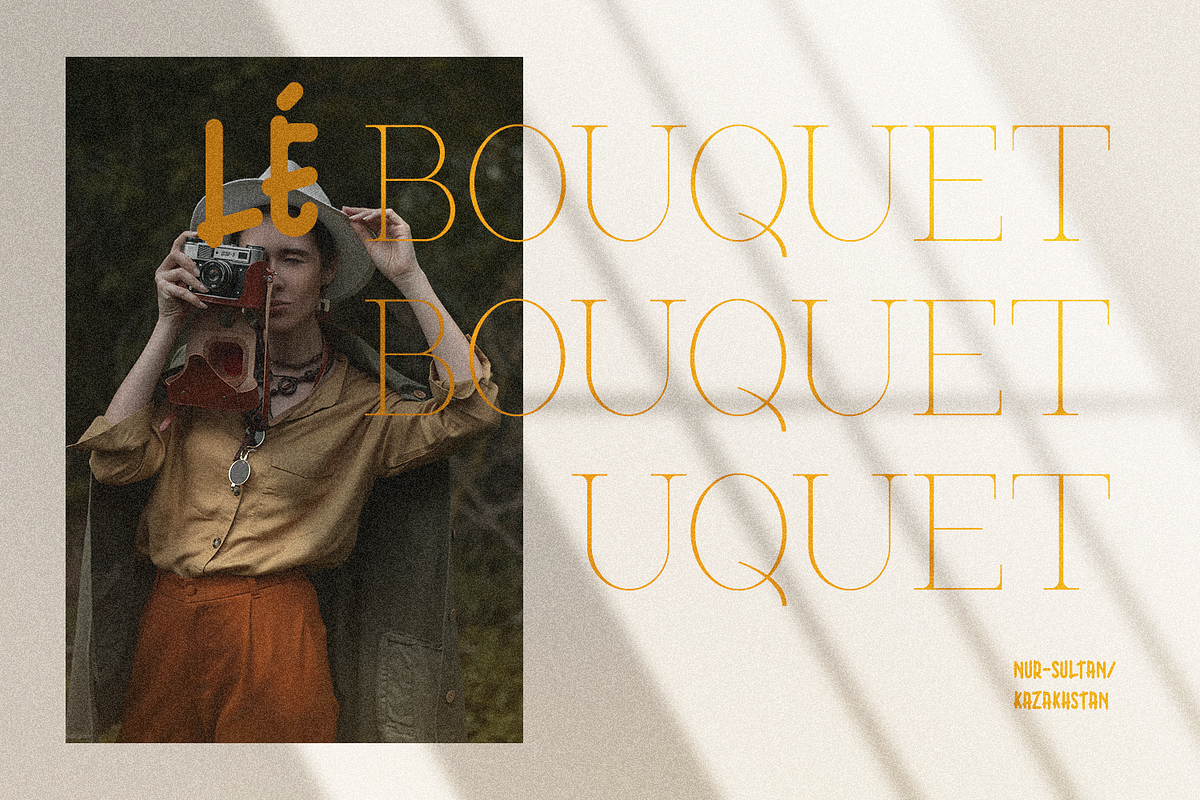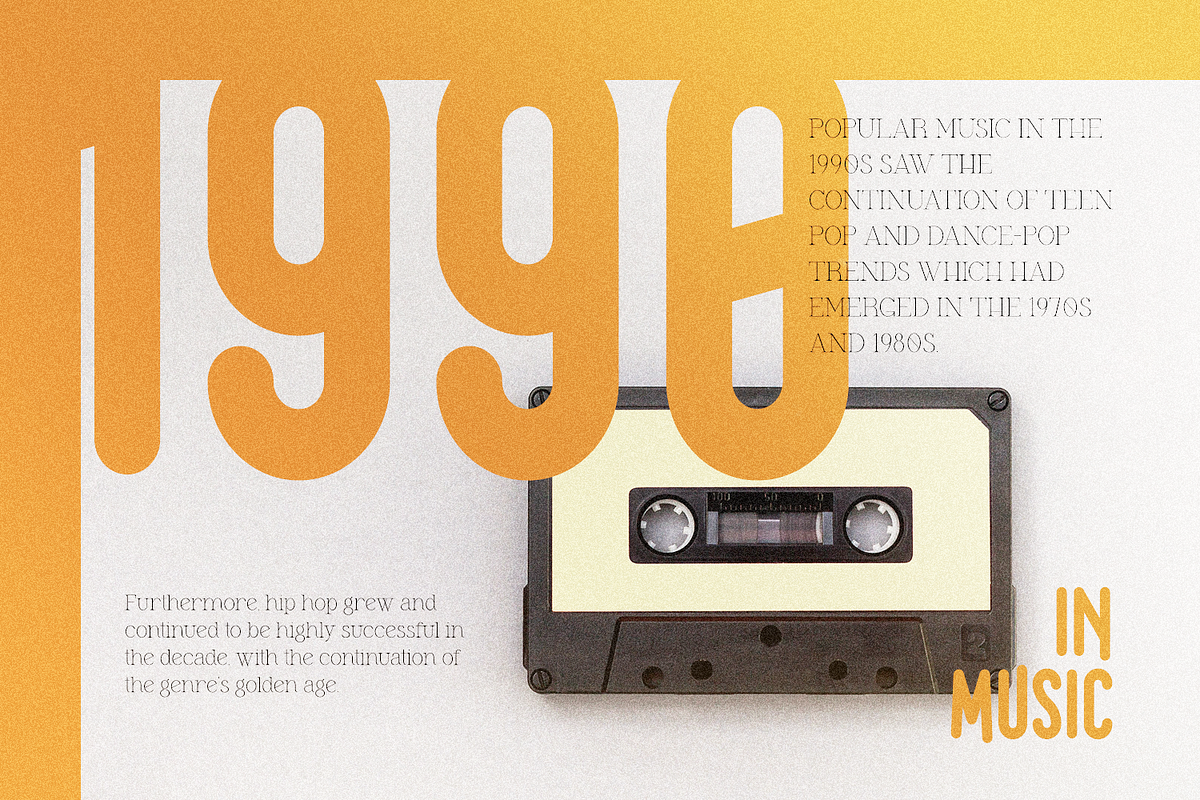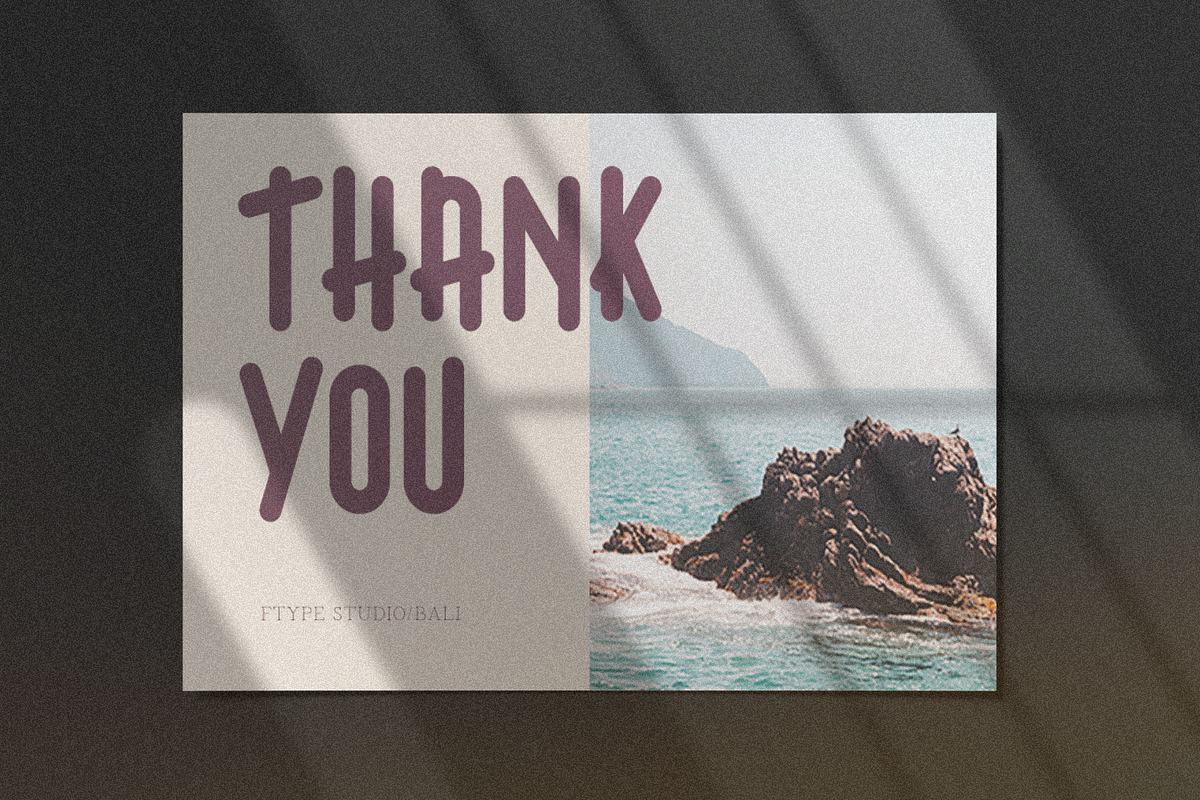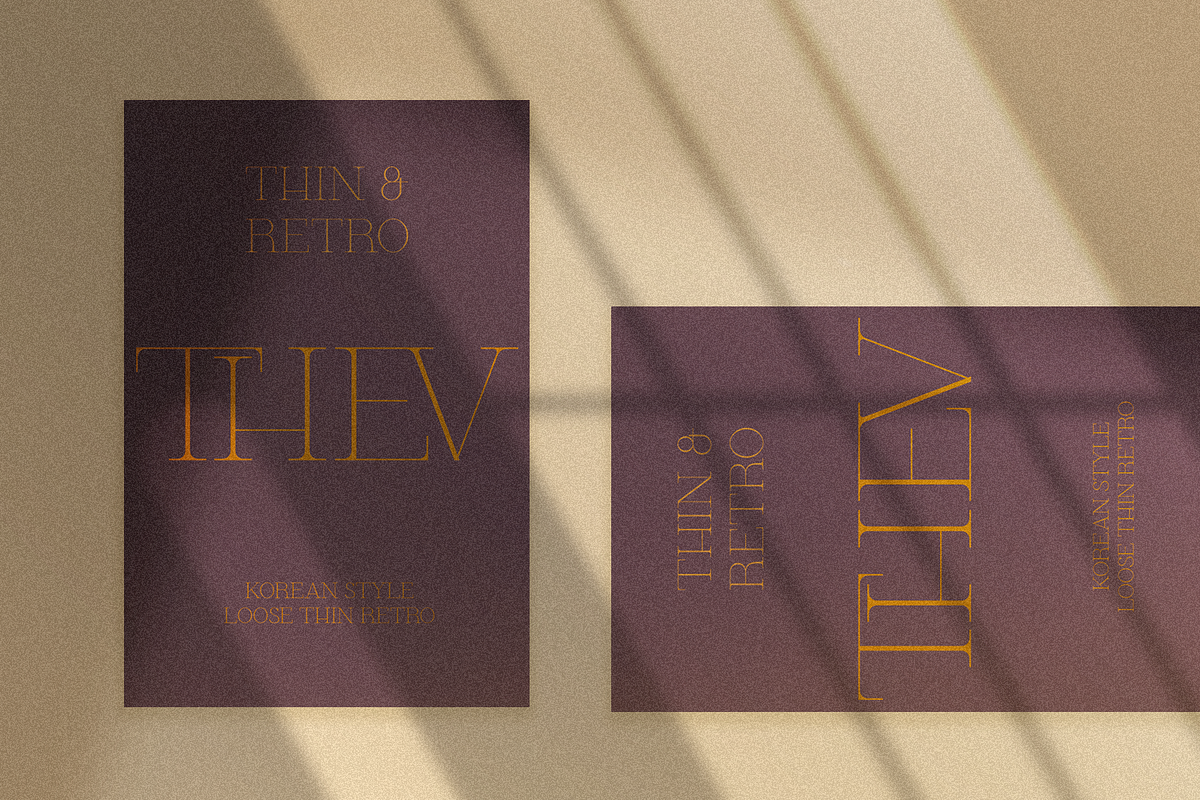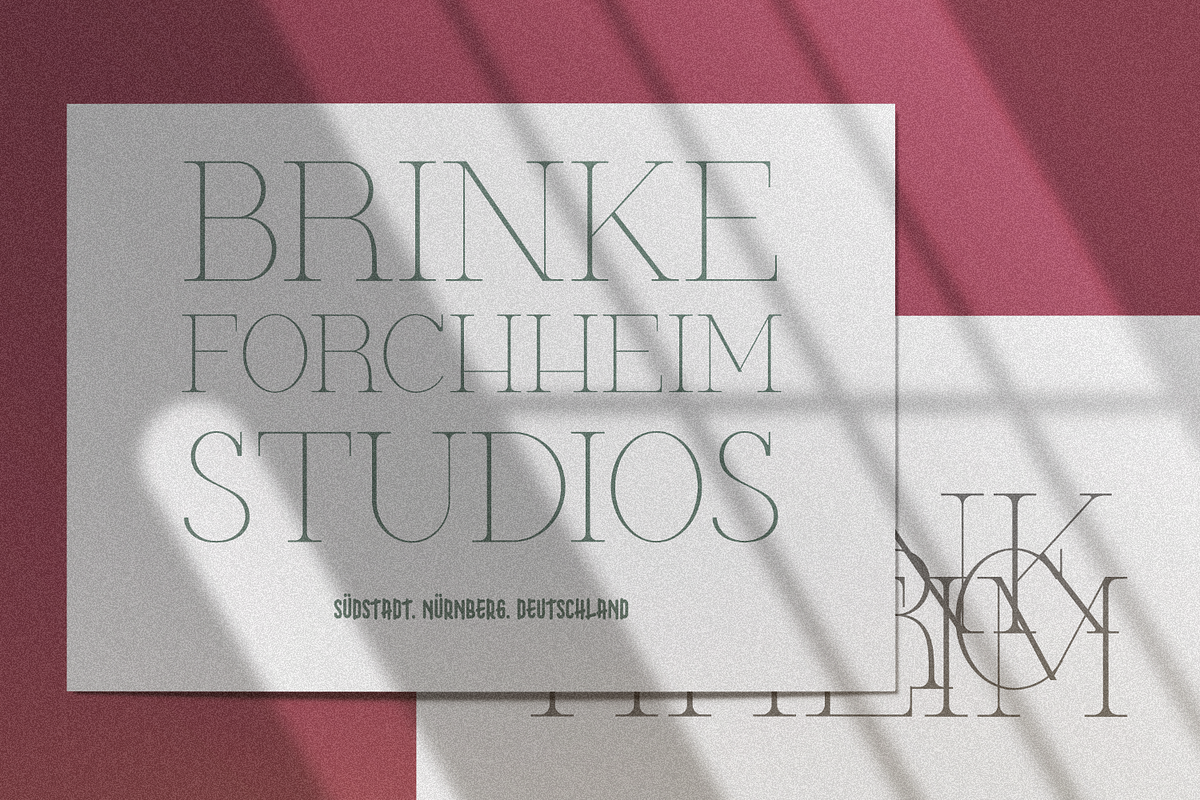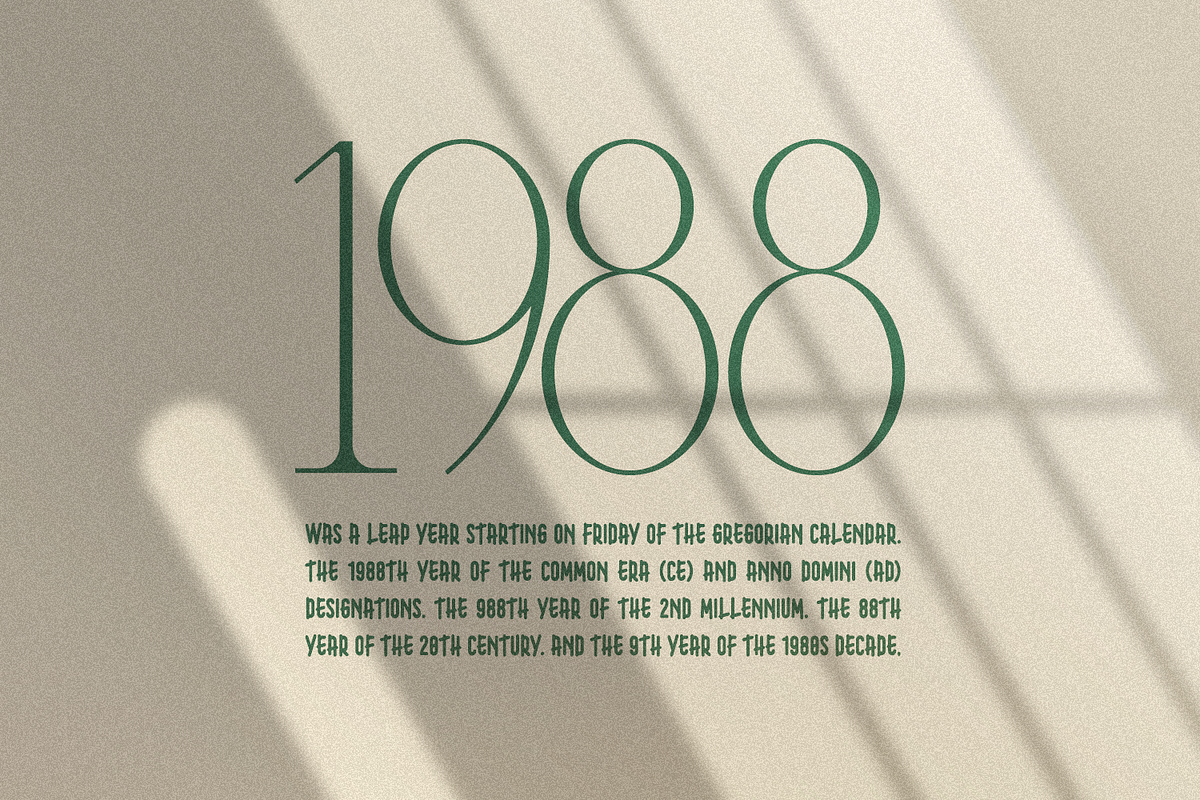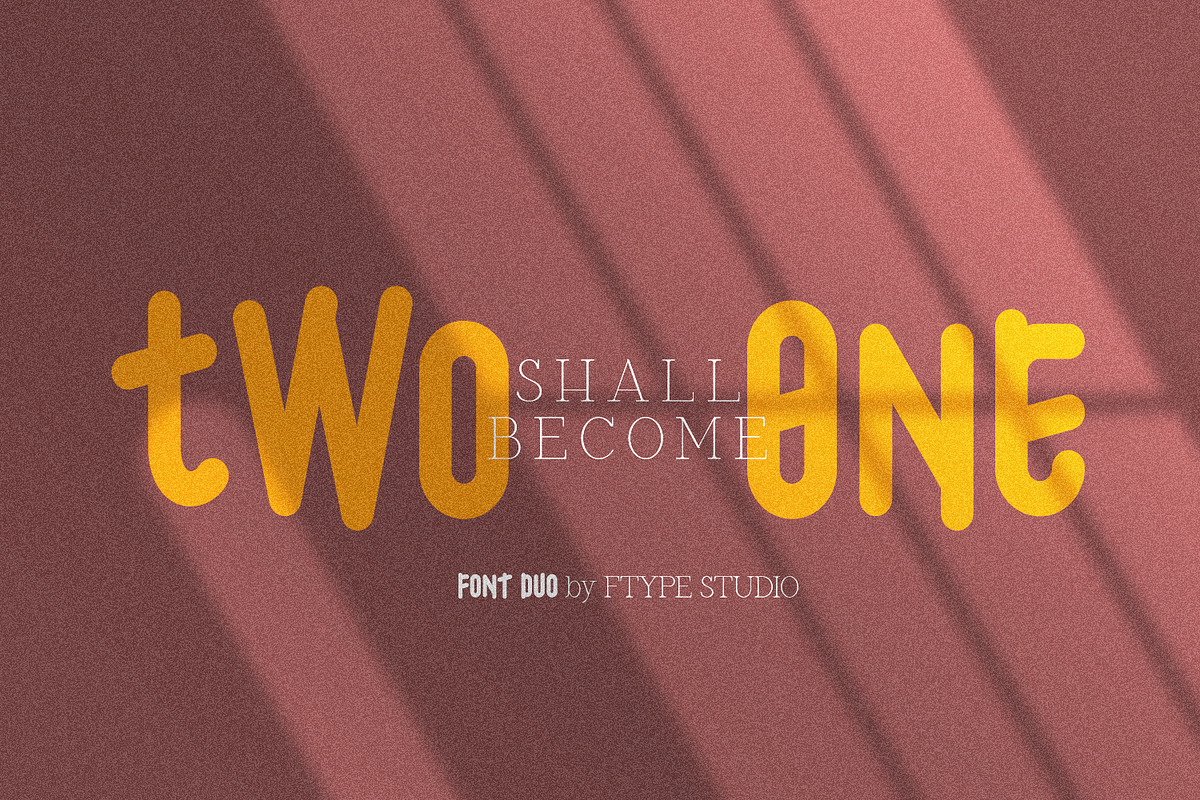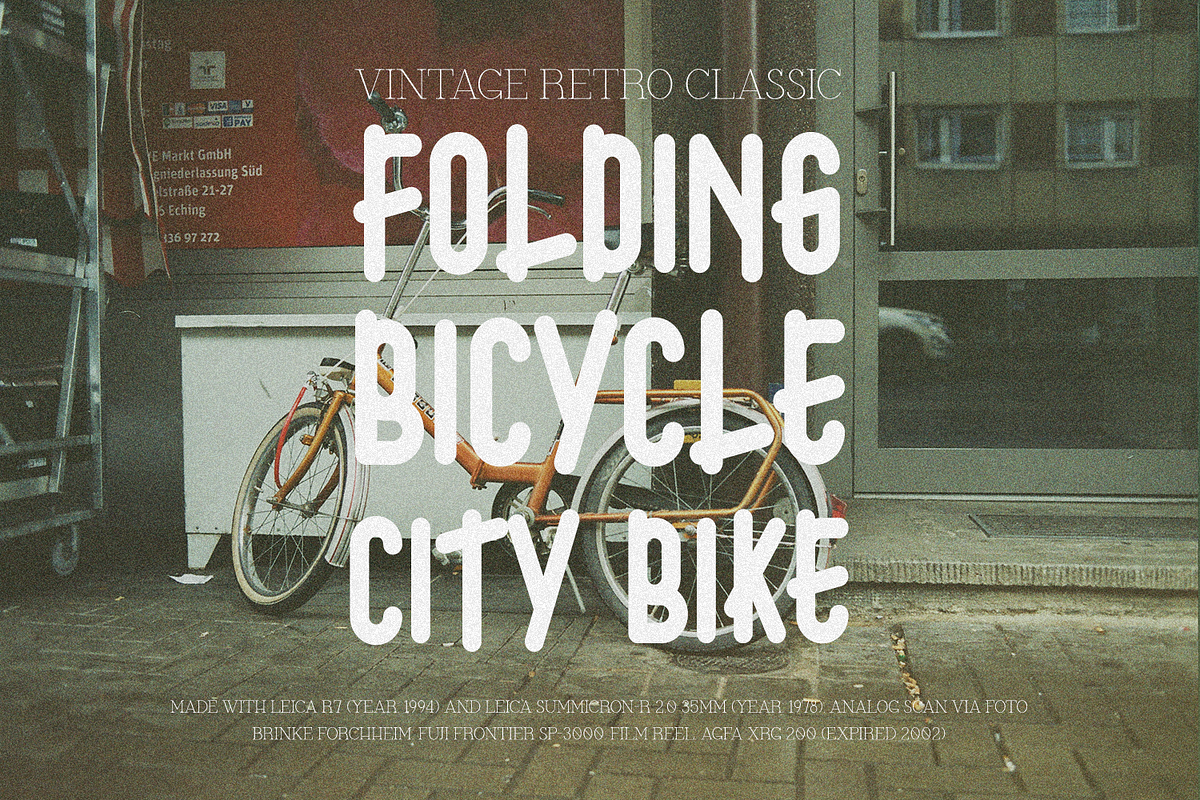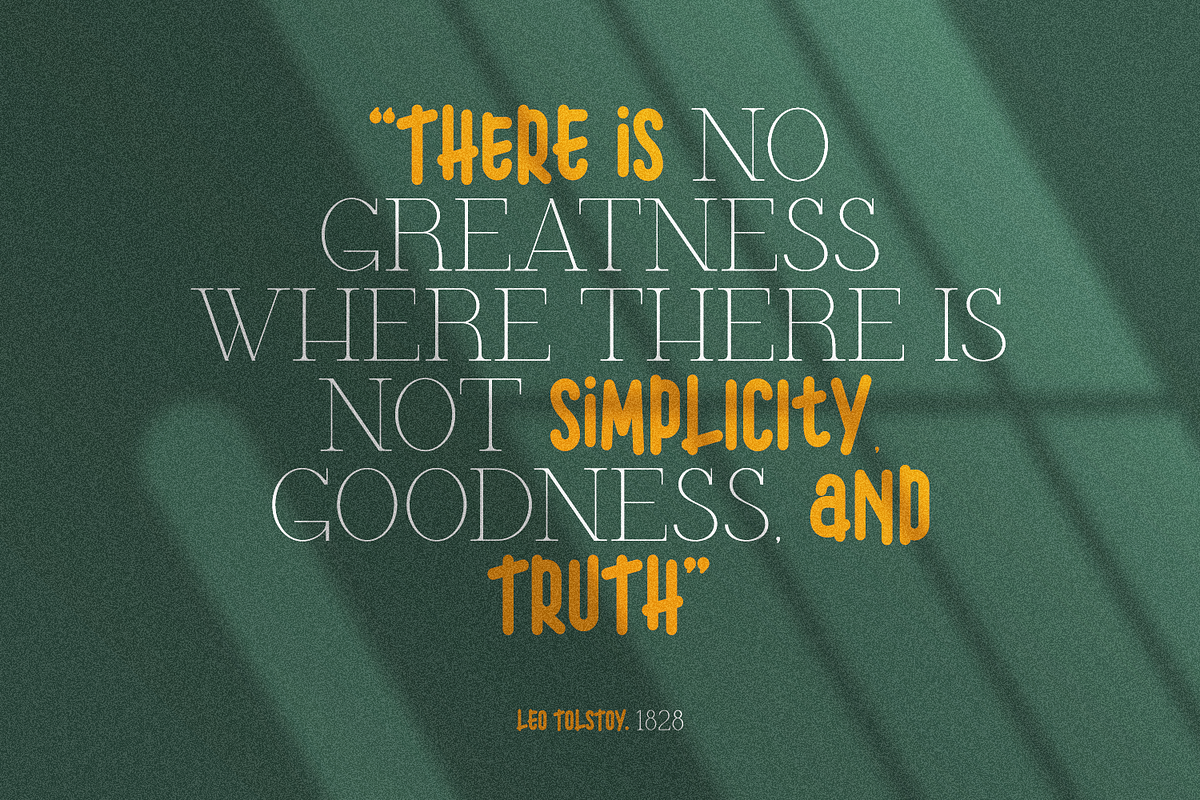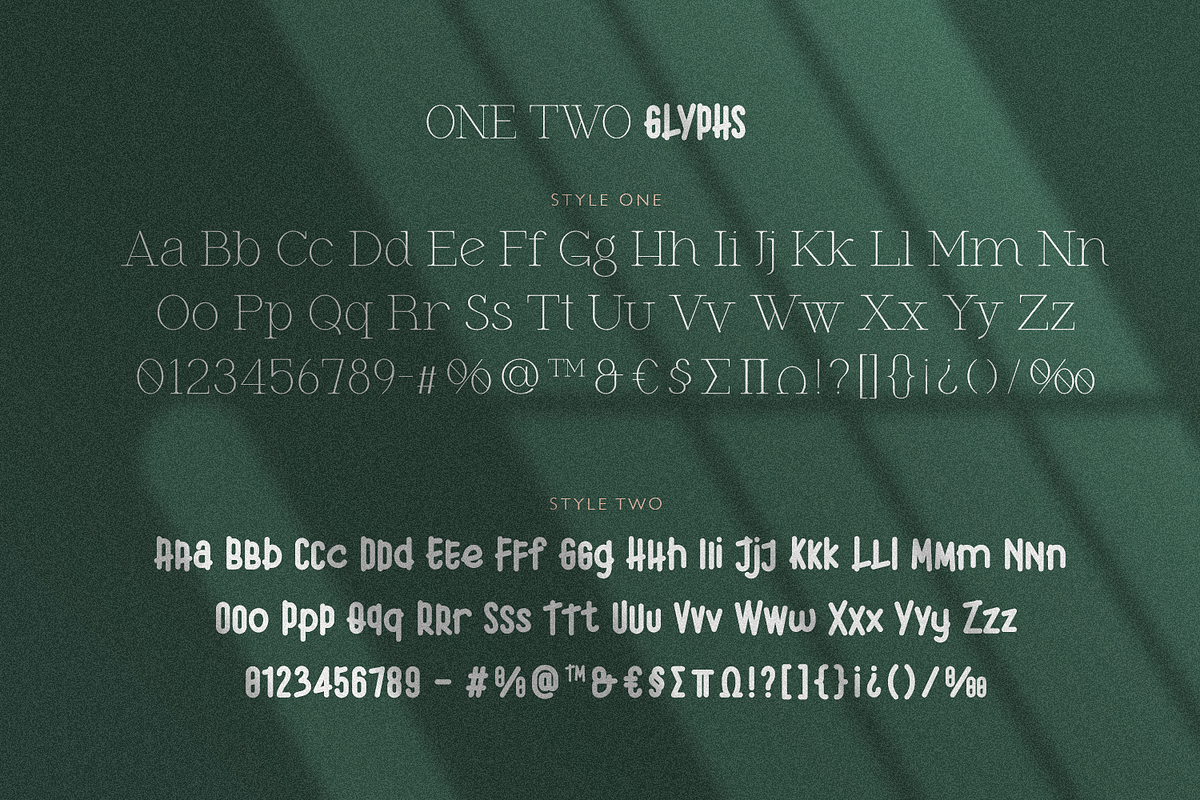
TwoOne
A casual and stylish serif and handwritten typeface called TwoOne is now available! Along with numbers, punctuation, and multilingual letters, it also contains distinct lowercase and uppercase letters, seems really at work among the vintage designs, logos, and brands. The Alternate and Ligature typefaces will be useful for anything you can think of!
- 2 Styles
- Stylistic Ligatures
- Multilingual Support for ä ö ü Ä Ö Ü ...